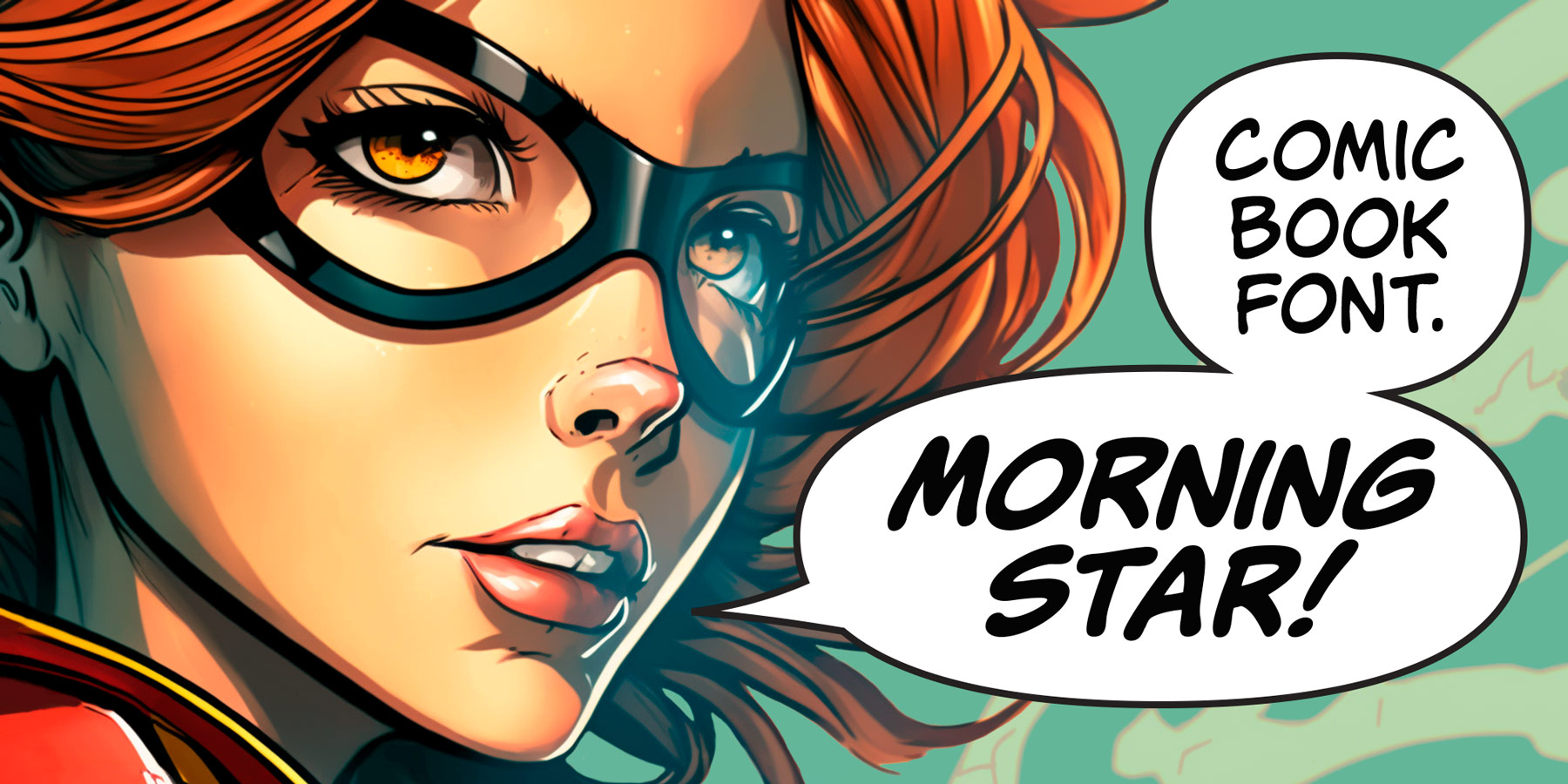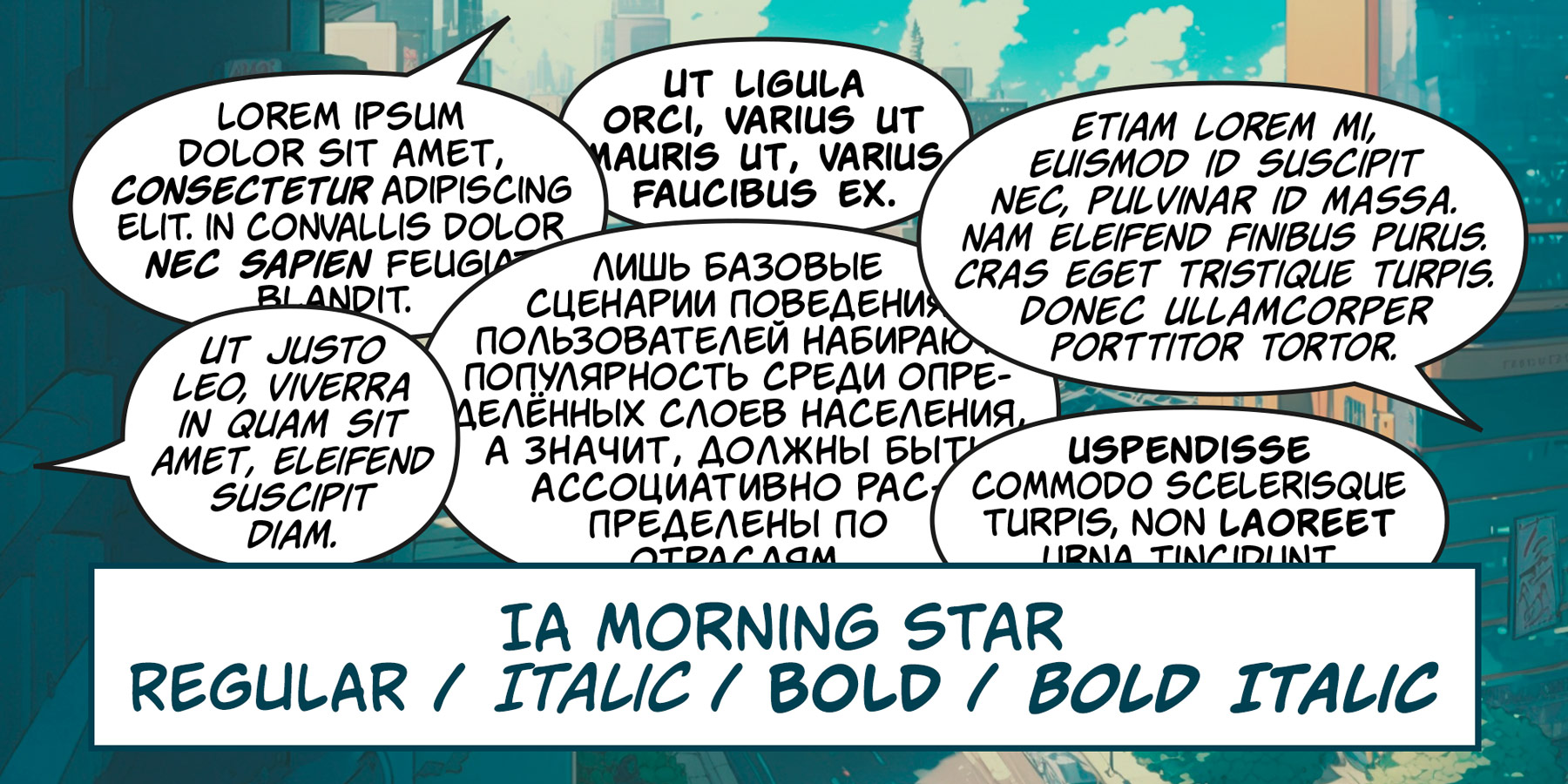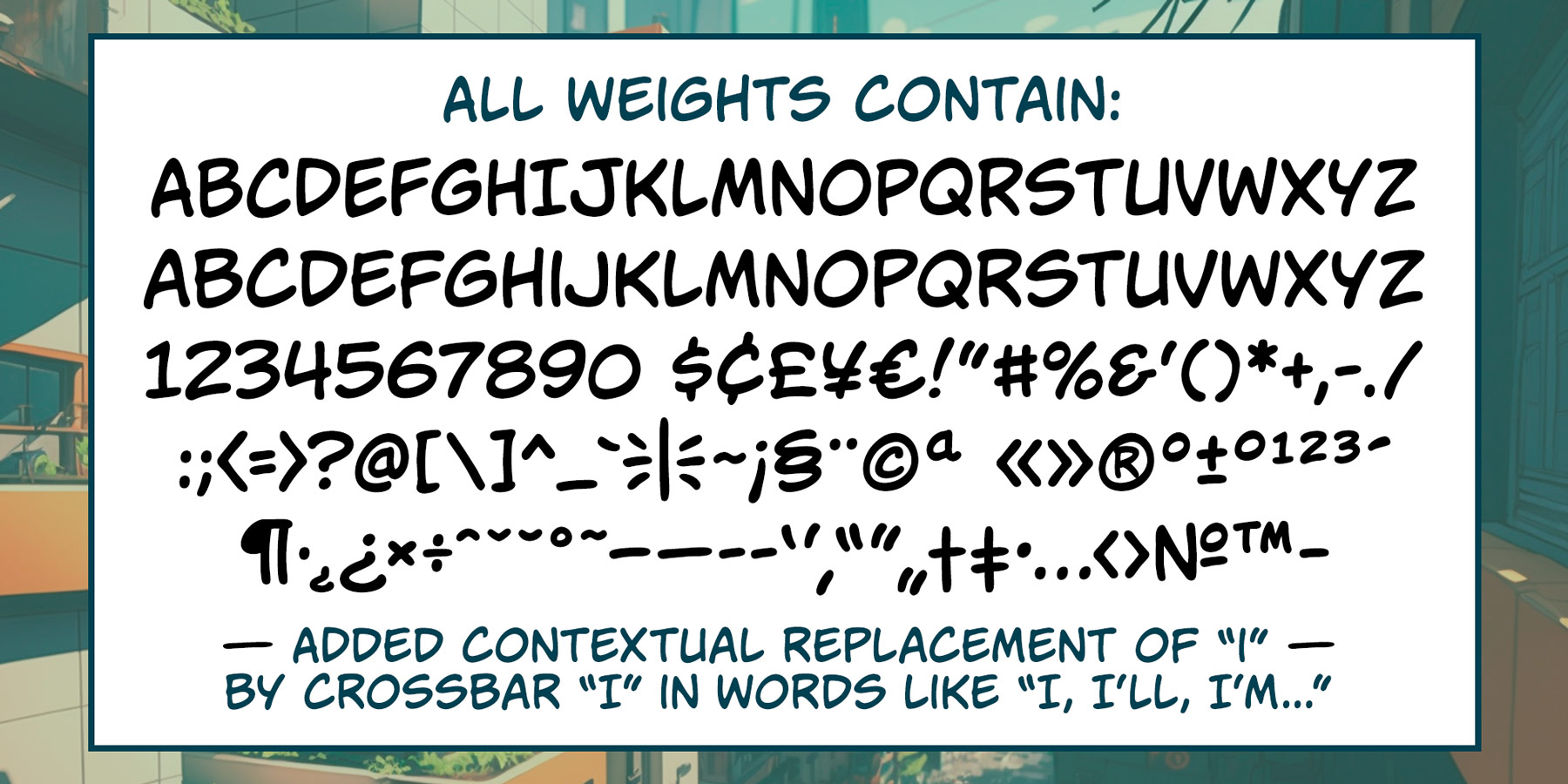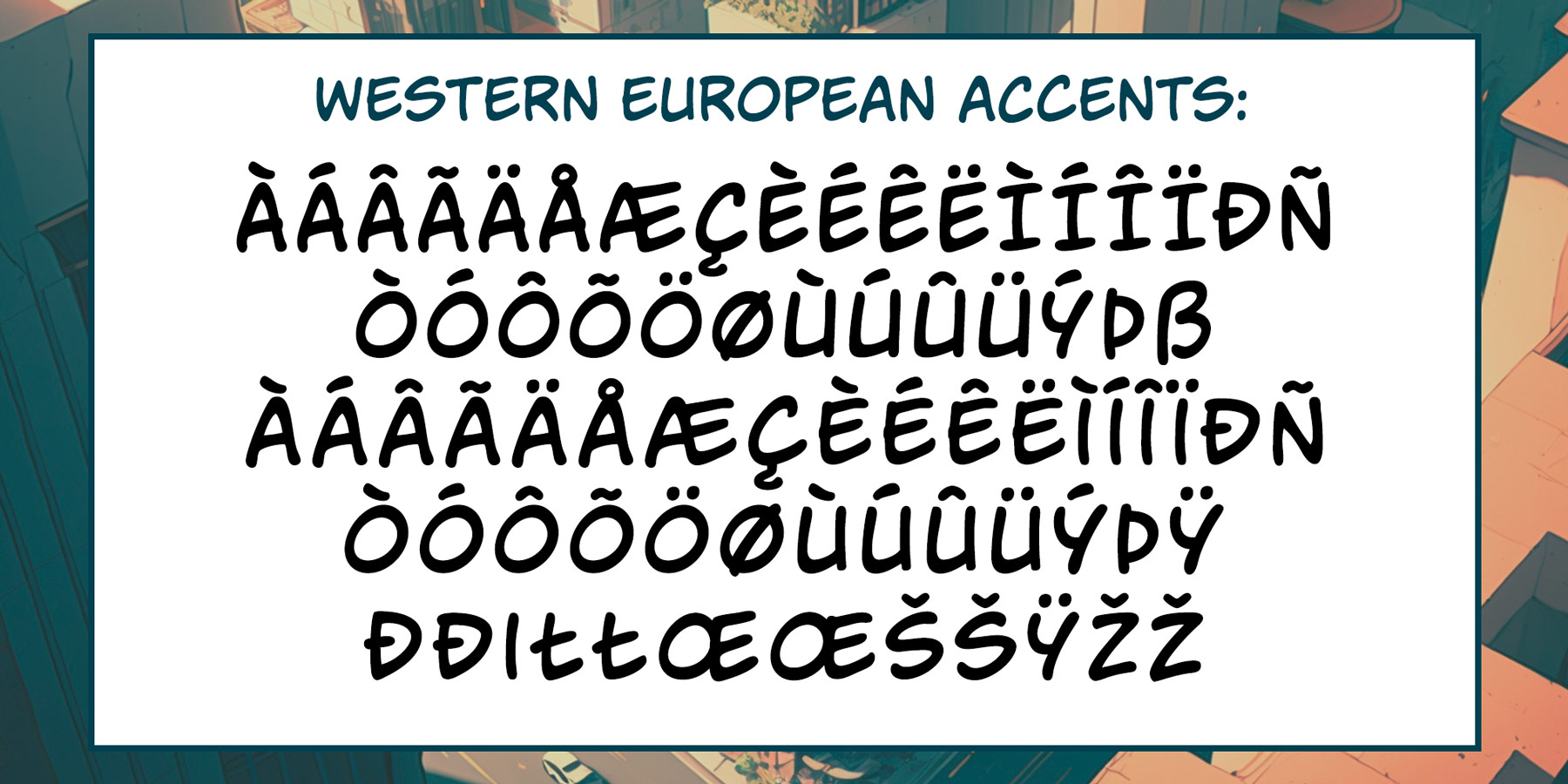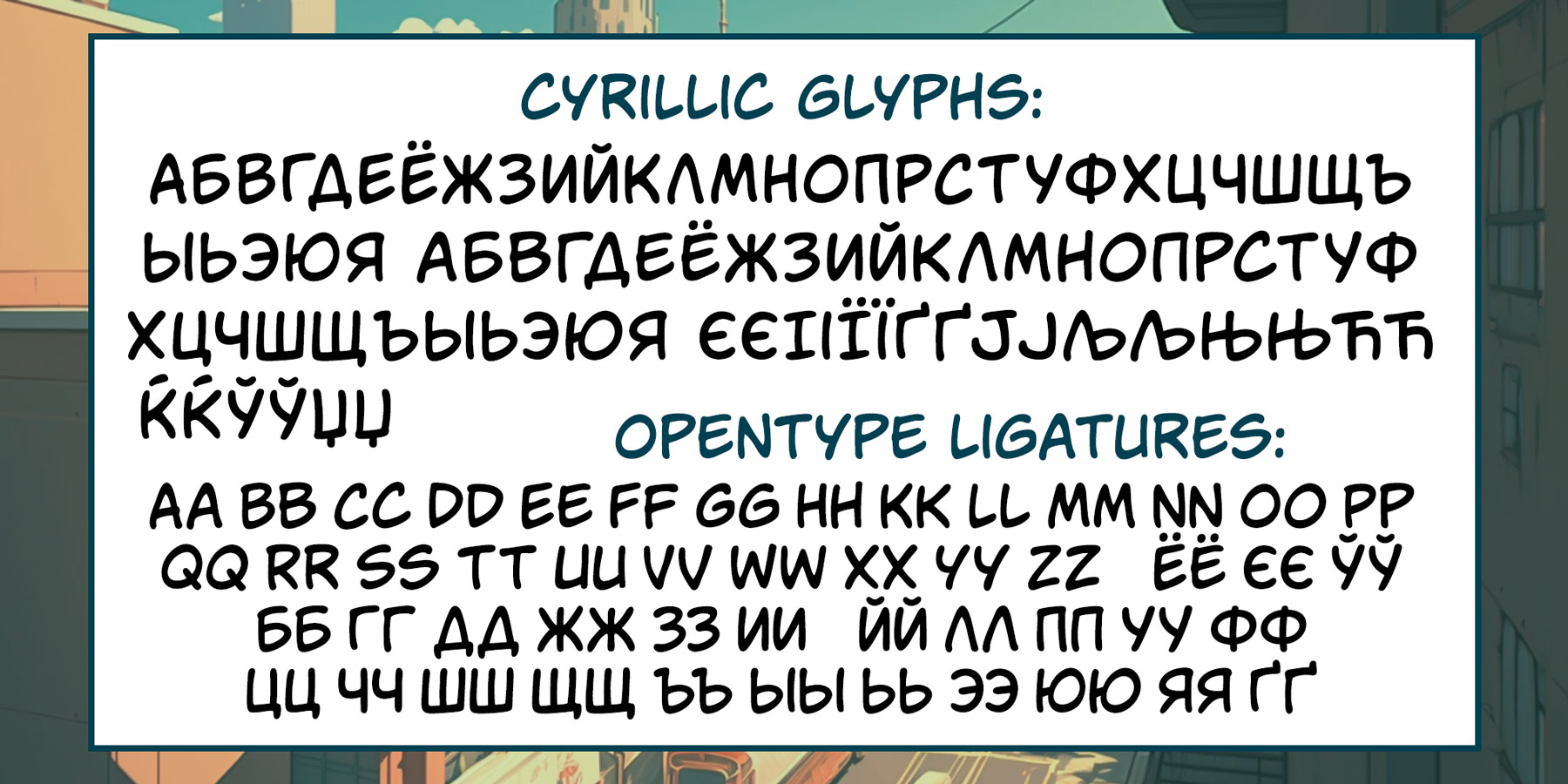
Morning Star
Universal comic book dialogue font
IA Morning Star is a readable universal comic book dialogue font that adorns any book.
The family includes Regular, Italic, Bold, and Bold Italic.
Added a set of European characters, Cyrillic; auto ligatures to replace repeating characters, and contextual autoreplacing crossbar “I” in words like I, I’m, etc.